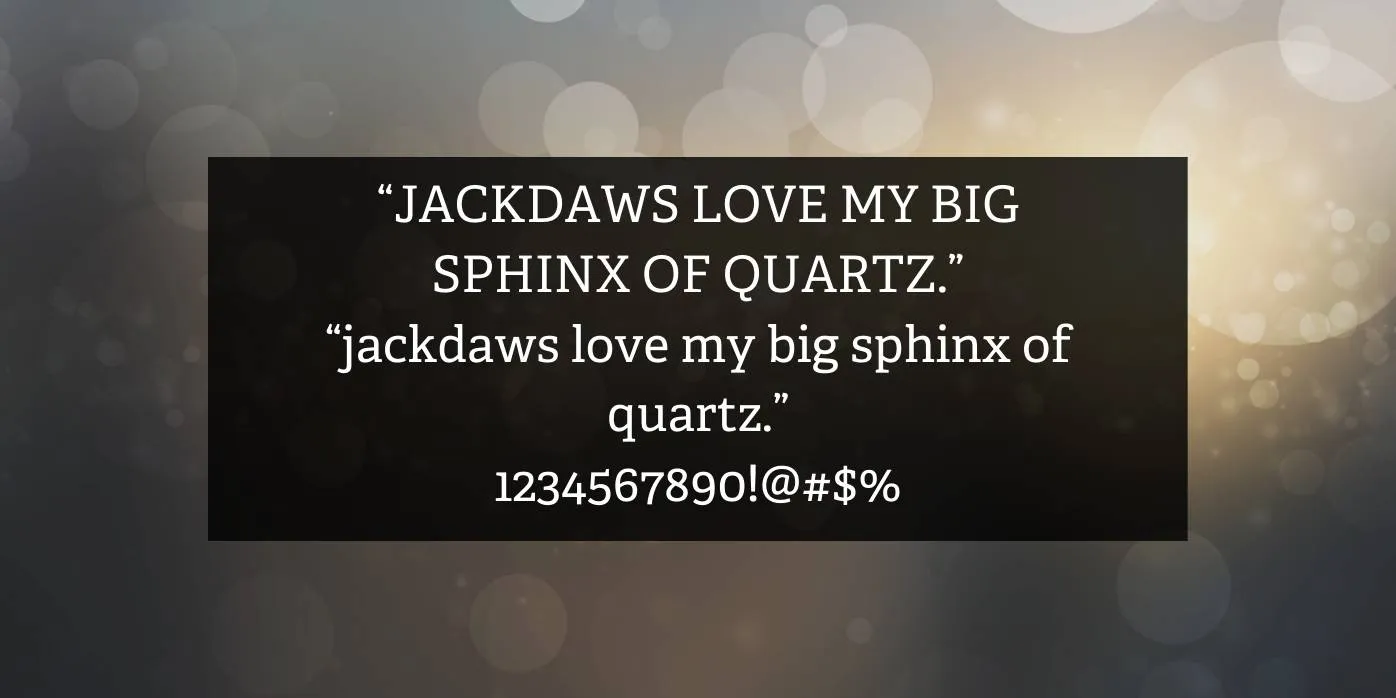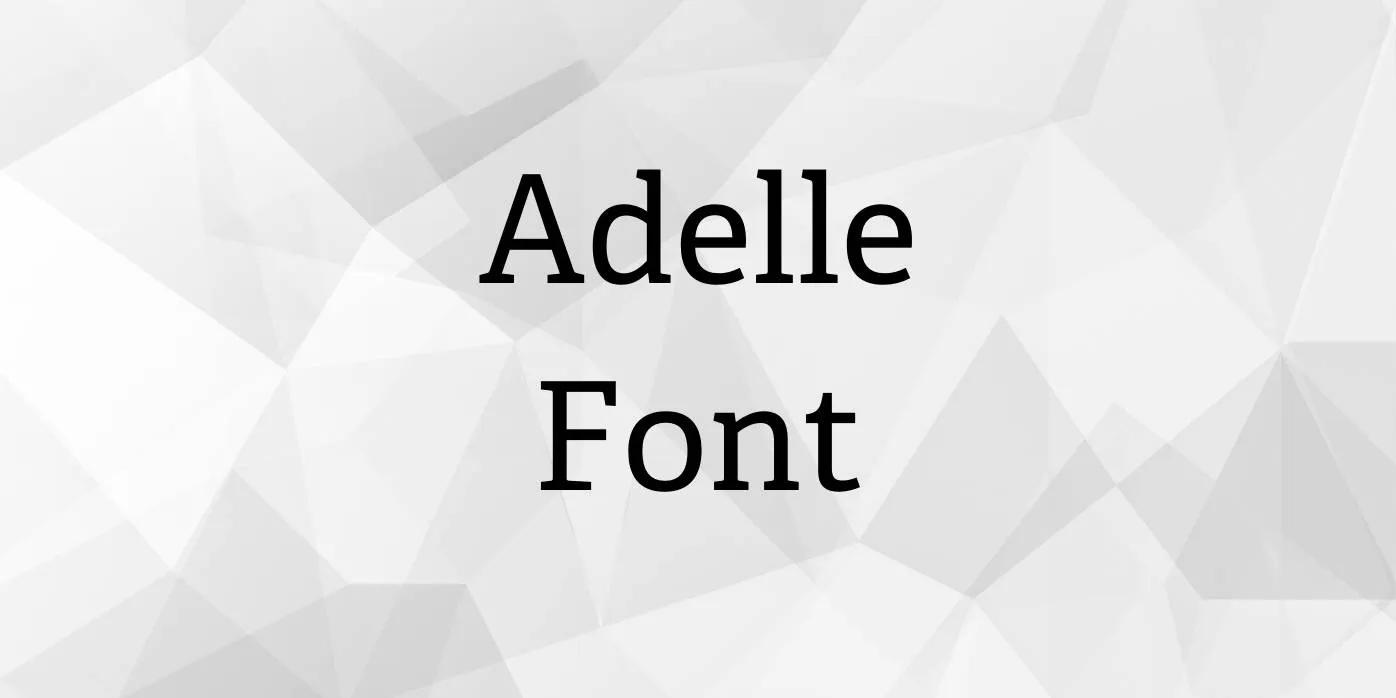
Adelle Font
In this post, we are consulting on a very famous typeface that is famous with the name Adelle Font. It is a Slab Serif typeface. This family was designed by two famous designers Veronika Burian and José Scaglione. This font was published by TypeTogether.
You can also use this typeface for Adobe Photoshop. For more classic features, you will have to use its alternative rockwell font which has the same features. Adelle Font includes 6 different styles; these are Regular, Italic, Bold, Bold Italic, Black, and Black Italic. All of these styles come with a unique set of features that make this family an all-around great choice for any project.